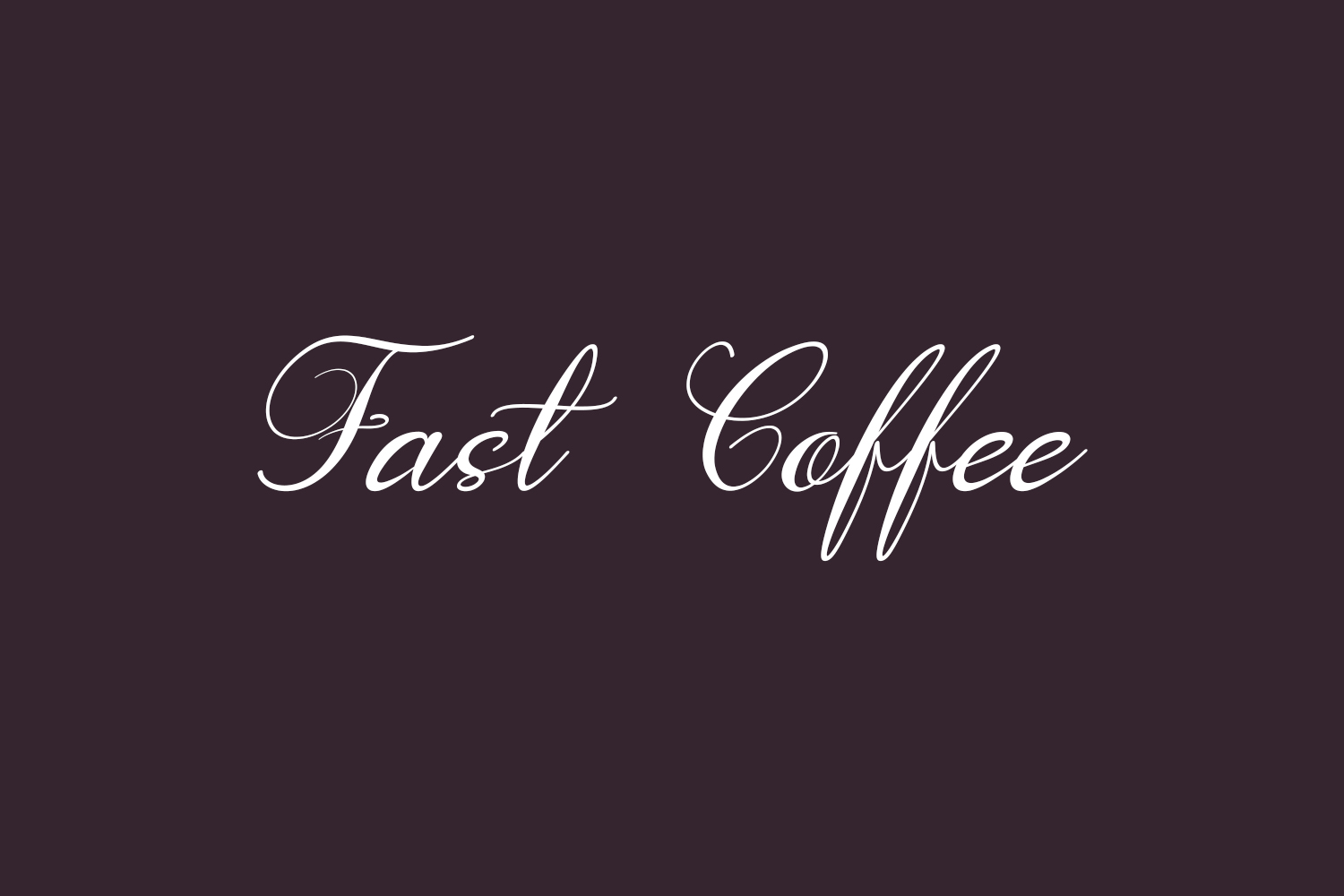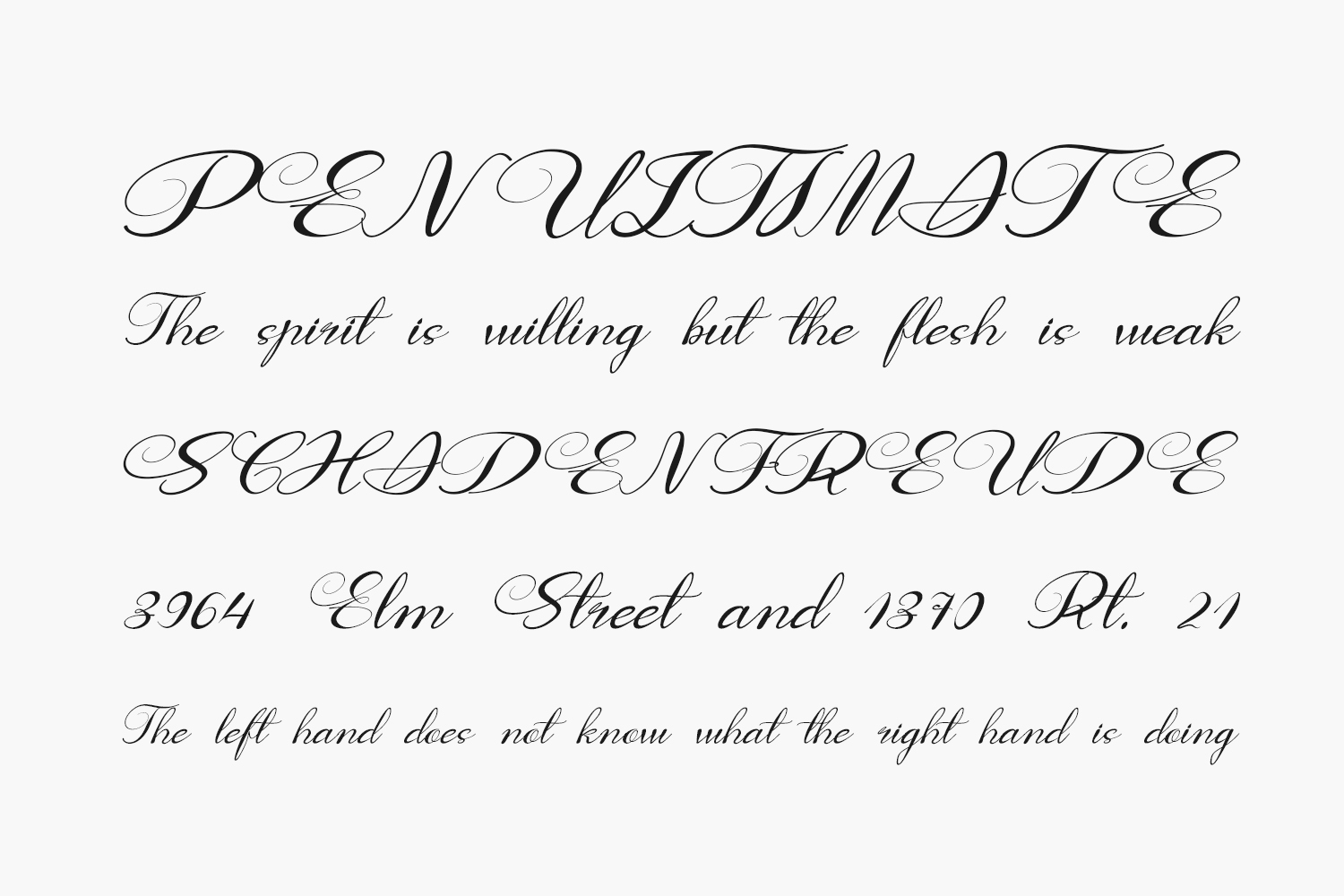
Fast Coffee Free Font is a well-balanced and delicate script font that exudes elegance and class. This font was particularly crafted for those who need a beautiful and refreshing look to their designs. Pastamore Free Font is free for personal use only. Please purchase the full version for commercial use.